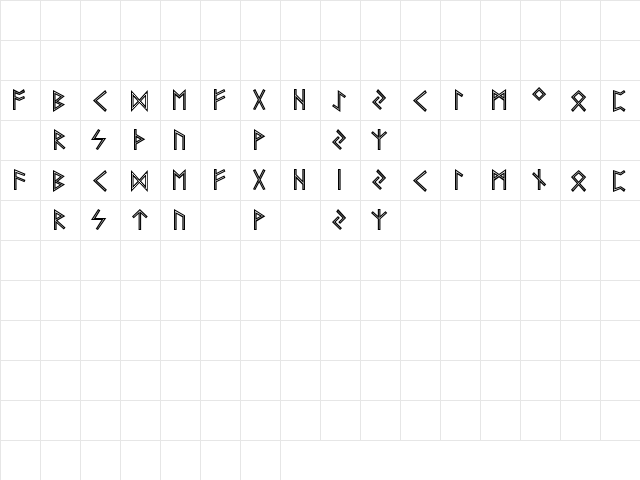
Futhark AOE Inline
| Style | Inline |
Design Context for Futhark AOE Typeface
Futhark AOE brings ornamental detail and strong personality to headlines and identities, where visual impact matters more than quiet functionality.
Font Pairing: Pair with a clean neutral sans-serif for body copy to let Futhark AOE's character lead without overwhelming the composition.
Pro Tip: Treat Futhark AOE as the centrepiece of your typographic hierarchy. One strong heading set in a decorative face can carry an entire layout.